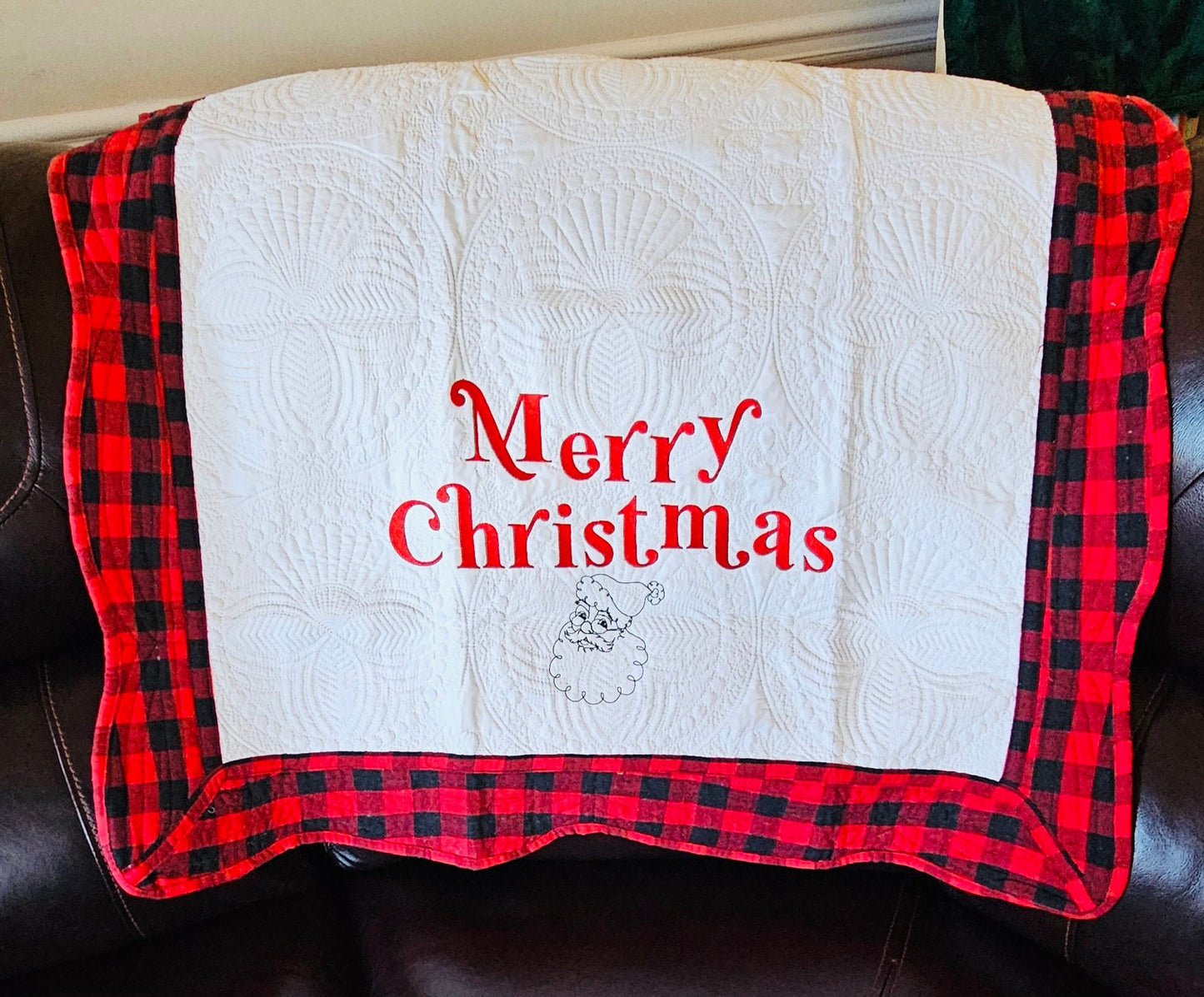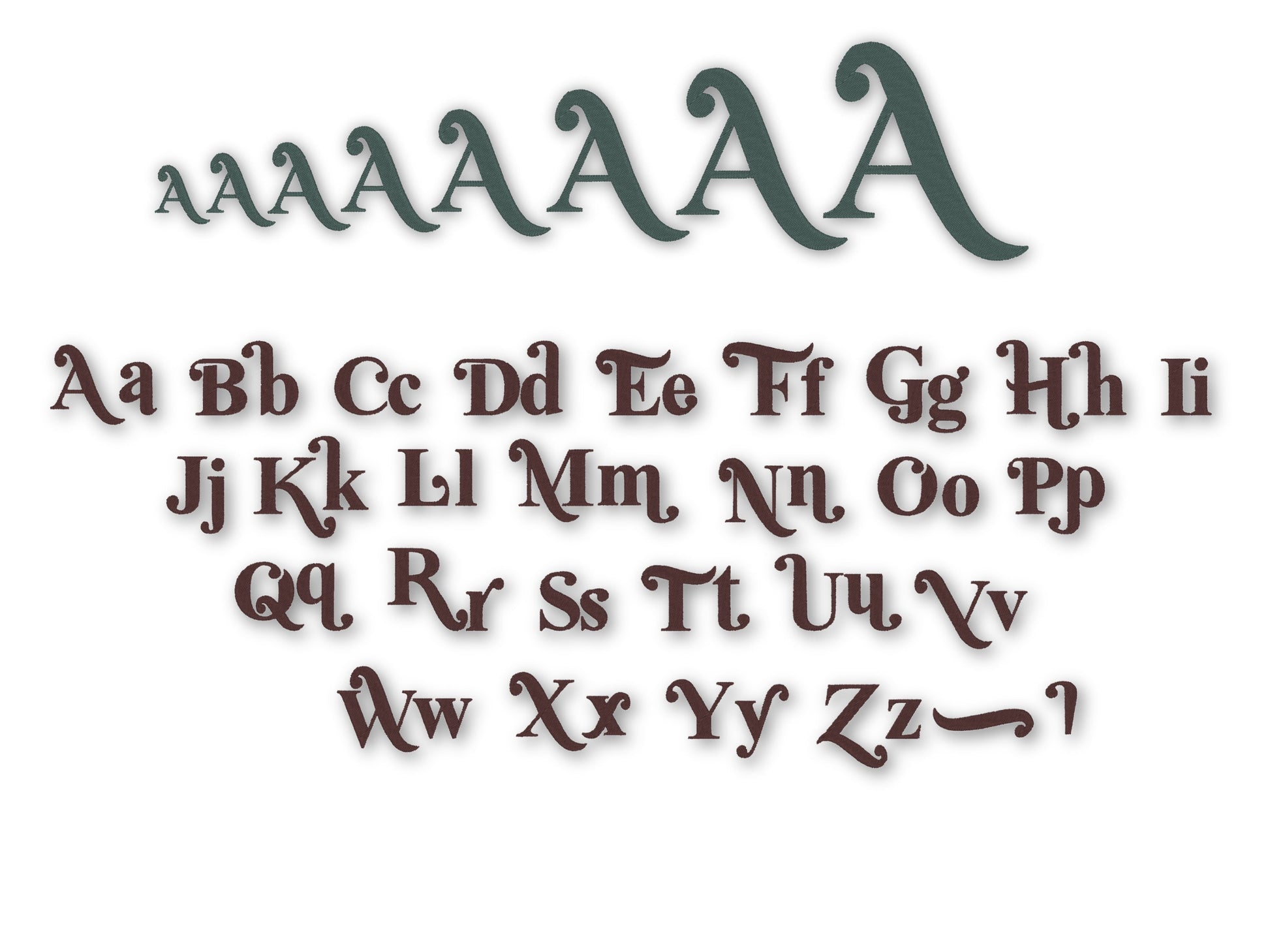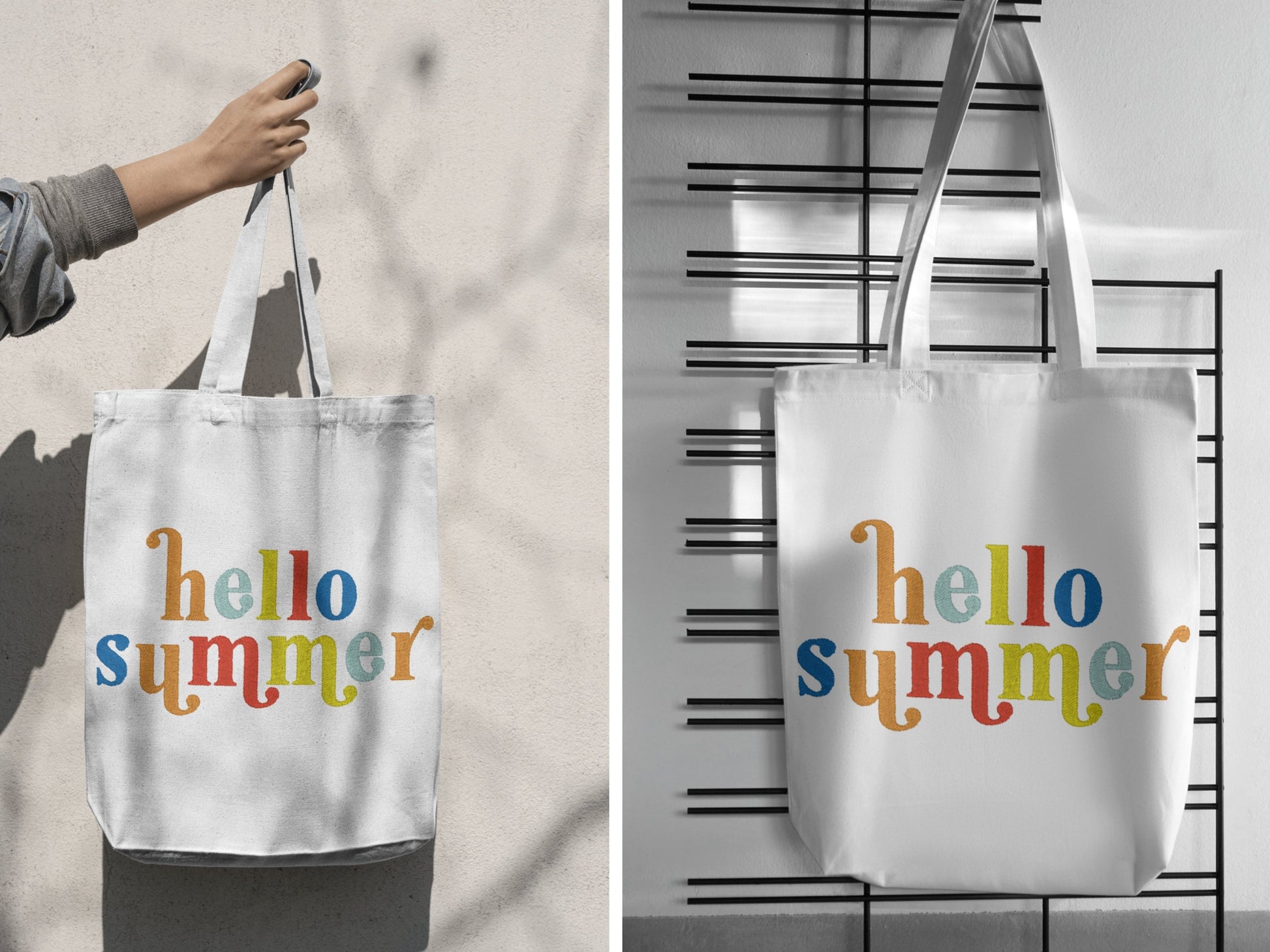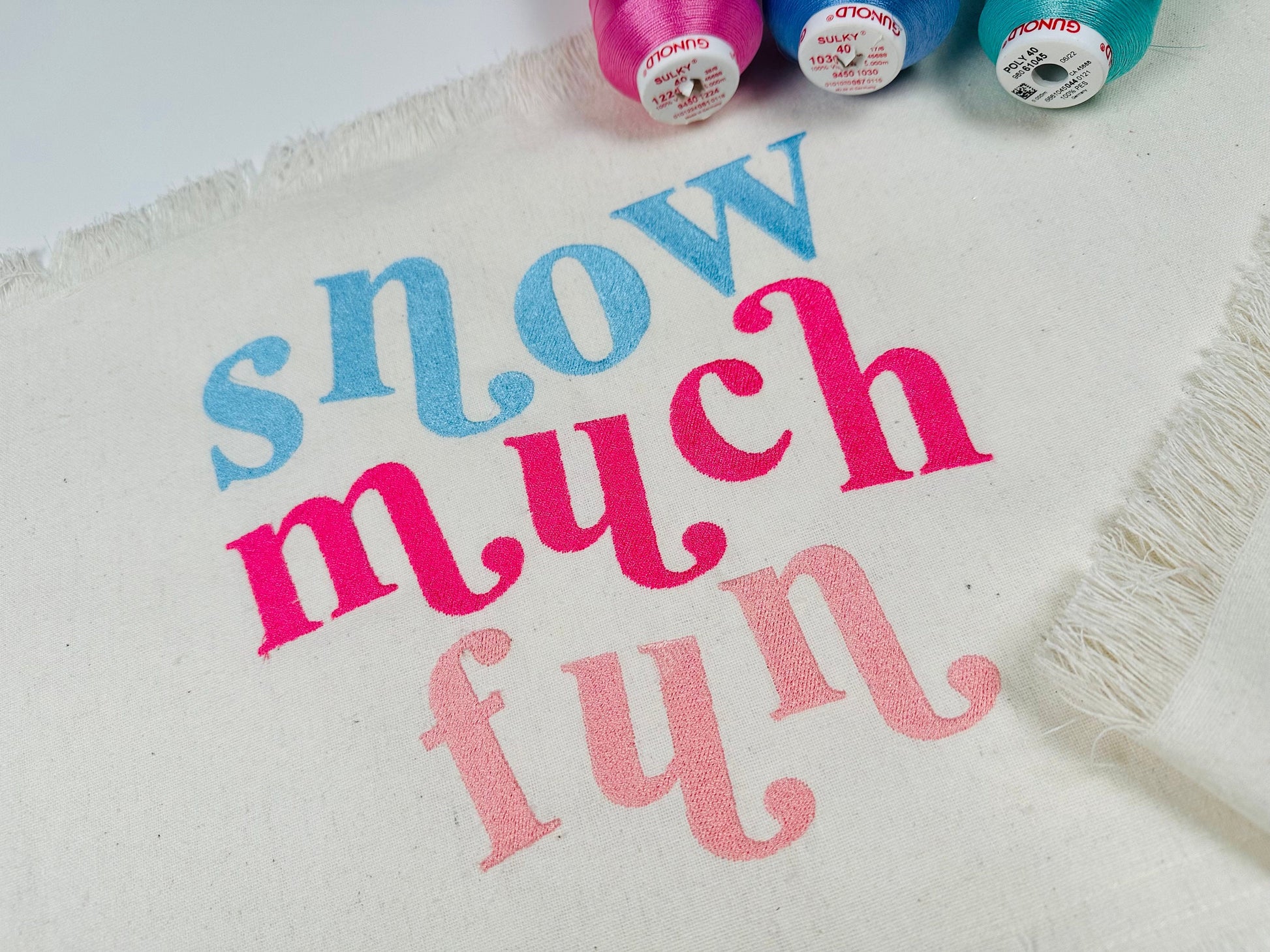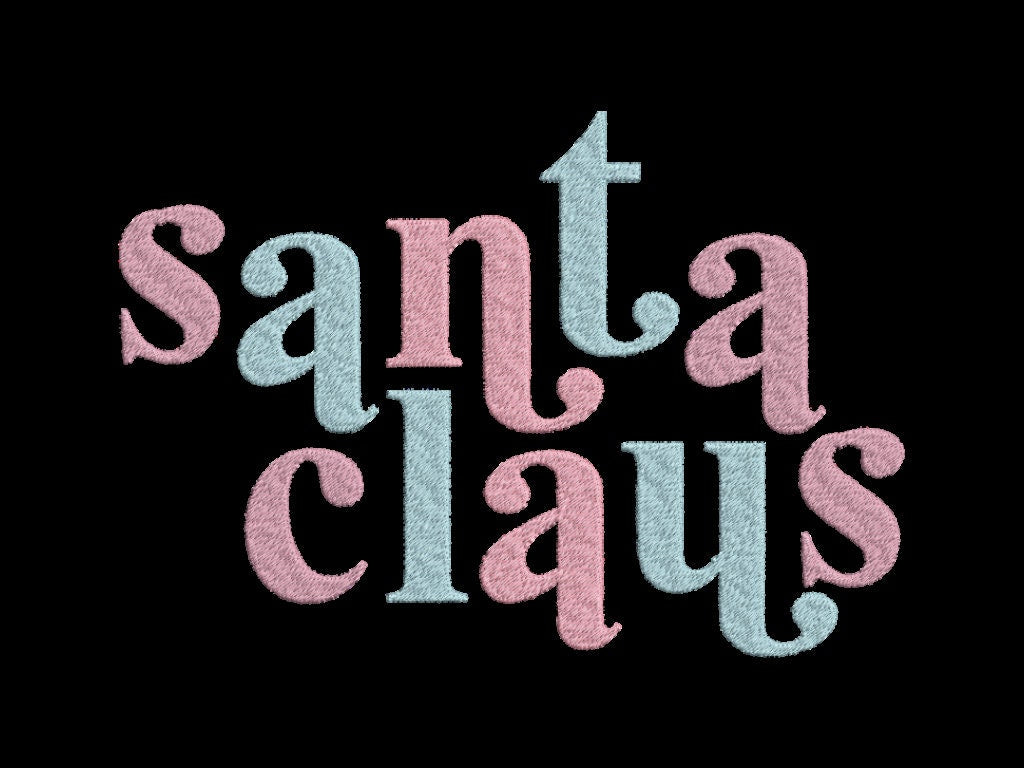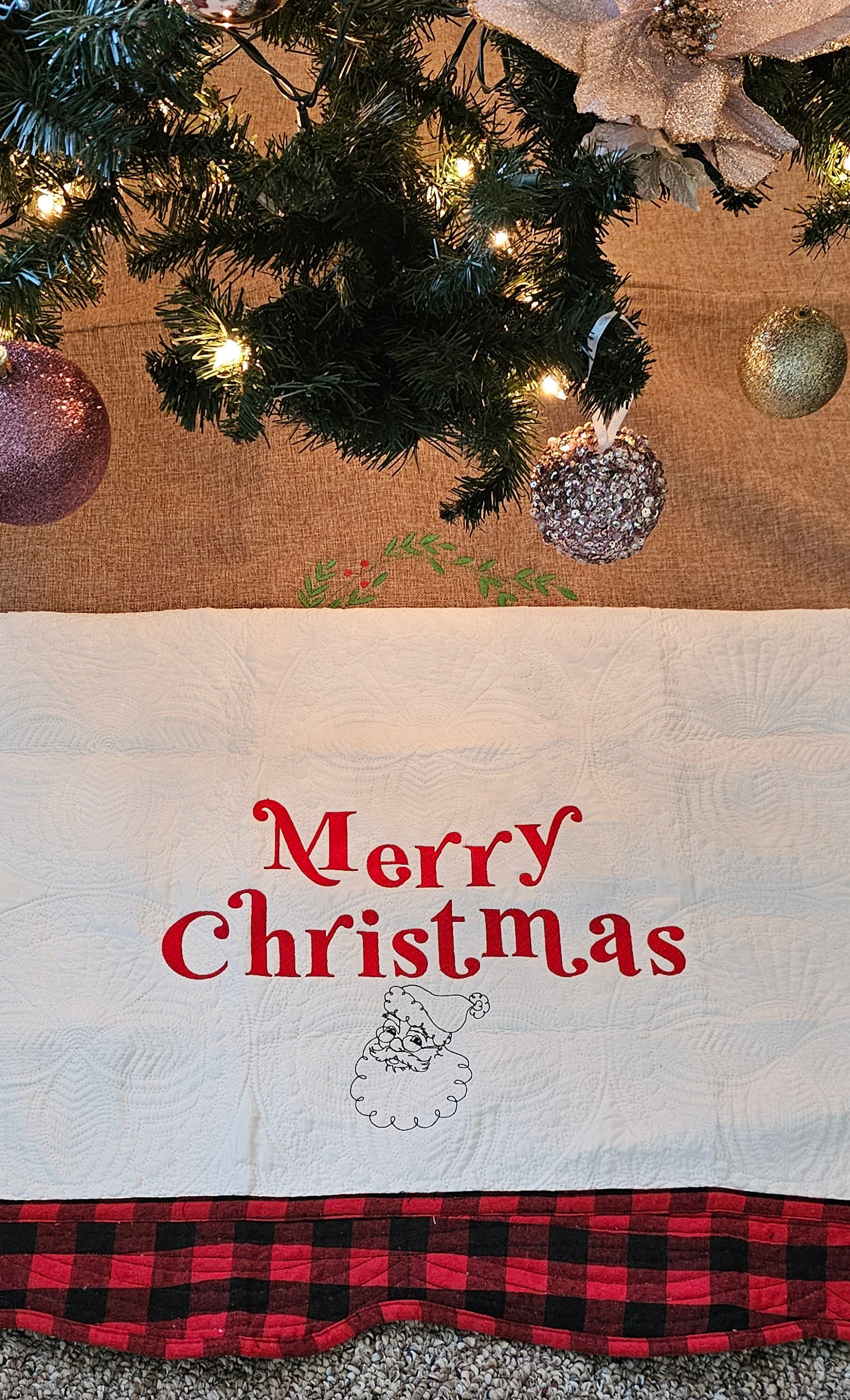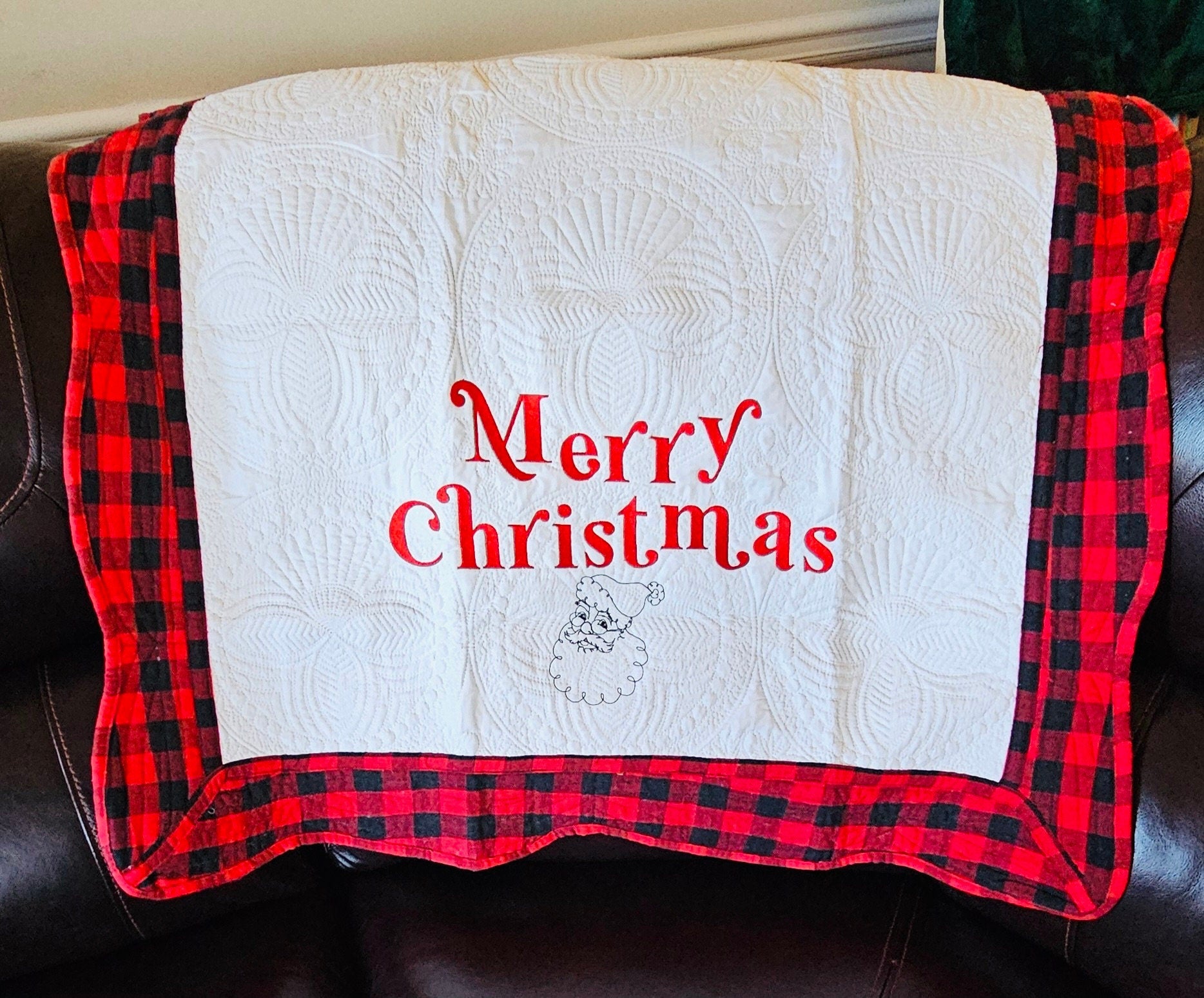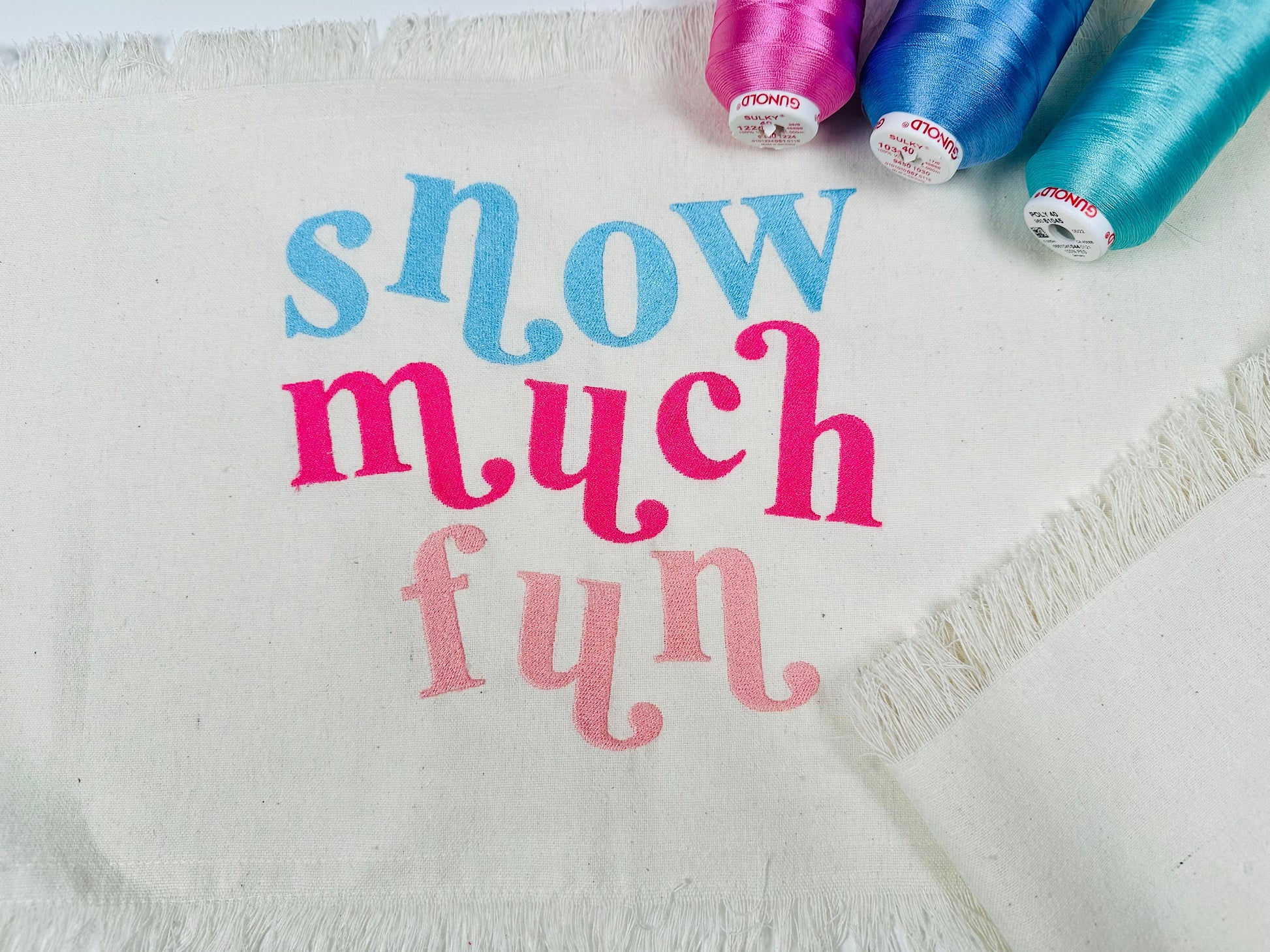
Vintage Retro Font Fill Stitch
Or click to open the linkA vintage retro font in fill stitch with swoosh tails. Trendy for holiday sweatshirts, jolly sayings, monograms and names.
Uppercase and lowercase letters in eight sizes: 1, 1.2, 1.4, 1.7, 2, 2.5, 3 and 3.5 inches, plus two swoosh tails in every size to finish a word.
- Vintage retro fill stitch font
- Uppercase and lowercase letters, two swoosh tails
- 8 sizes, 1 to 3.5 in